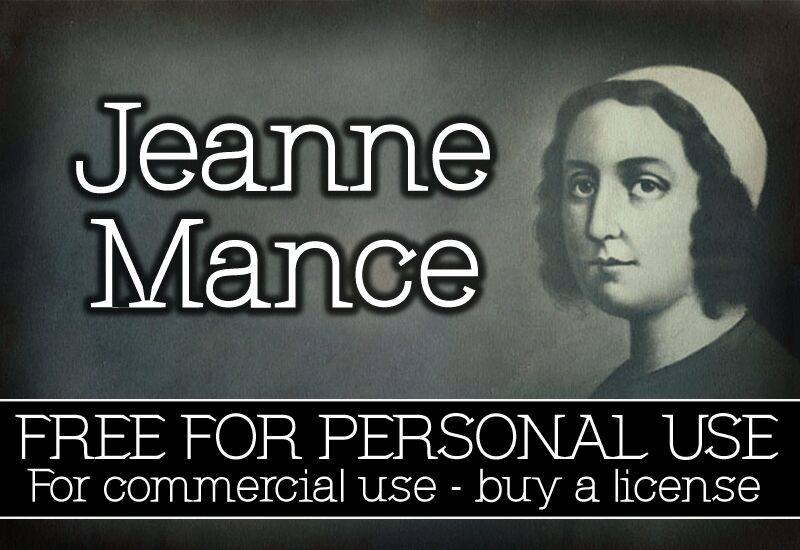
CF Jeanne Mance from CloutierFontes is a free old-school serif display font with a lean, theatrical silhouette. Its tall letters mix broad vertical strokes with hairline joins and sharply flared serifs. Angular cuts and off-center curves keep the formal construction from looking conventional.
Its early twentieth-century poster character suits theatre programs and period-inspired book covers. Fashion branding can also use the long proportions and crisp contrast for an elegant, slightly eccentric signature. The unusual geometry is especially apt for stories and events shaped by cabaret, historical drama, or literary nostalgia.
CF Jeanne Mance
CF Jeanne Mance Regular is a font by CloutierFontes, designed by Steve Cloutier in 2013.